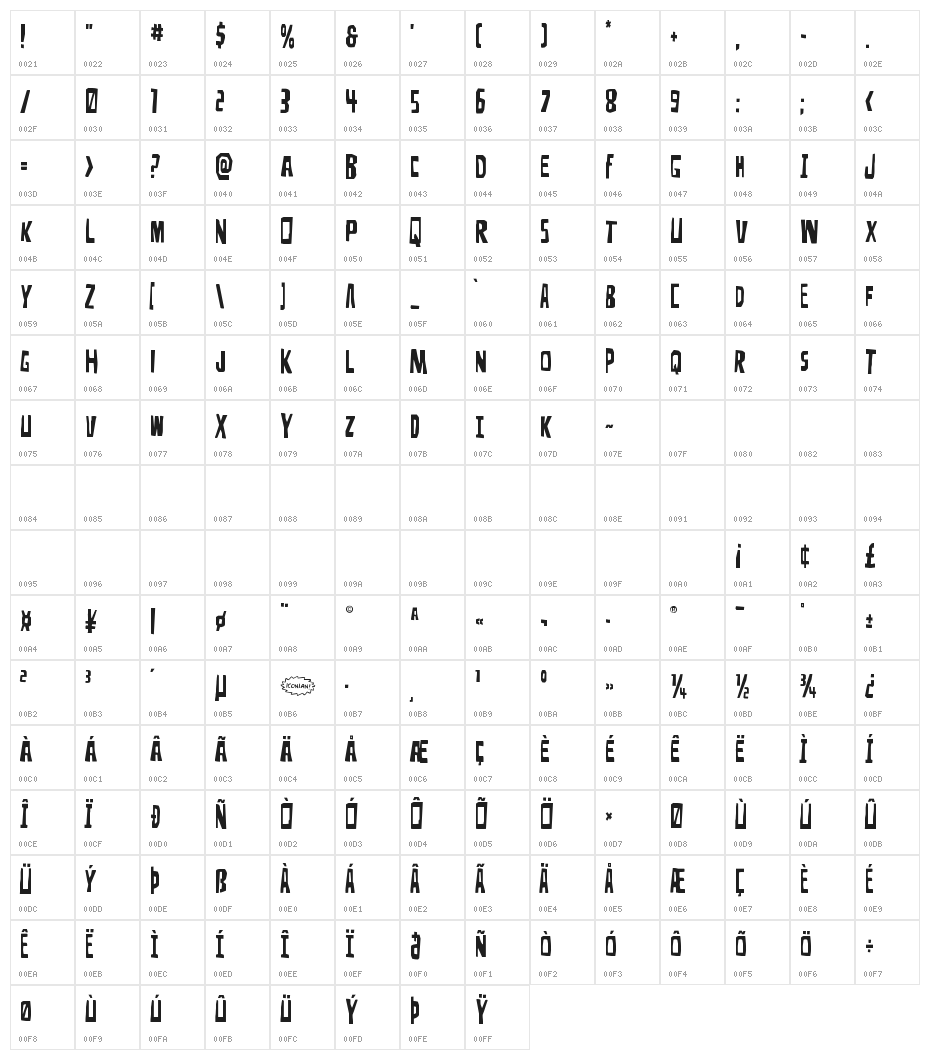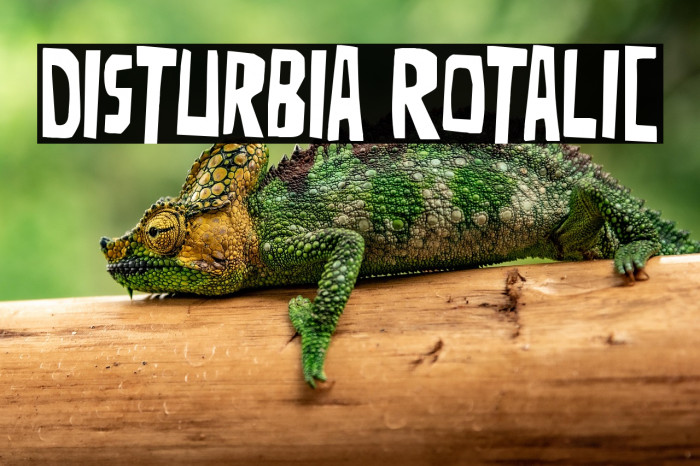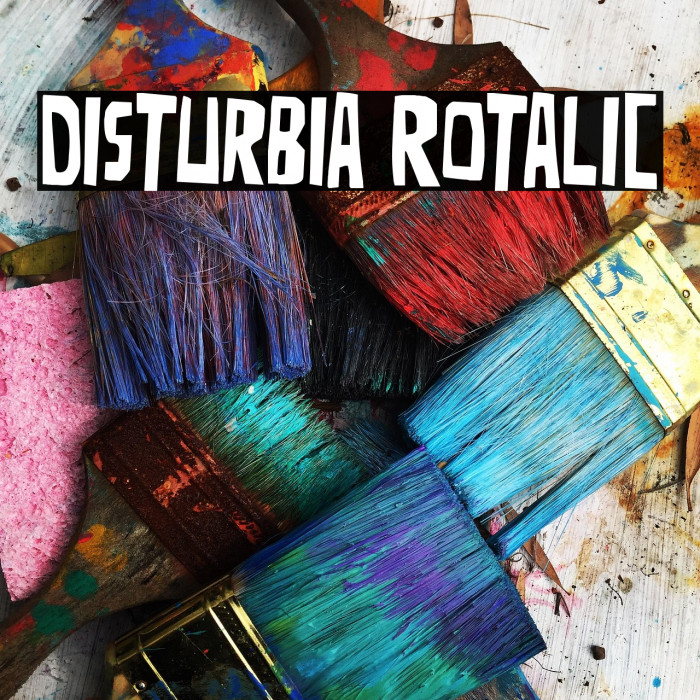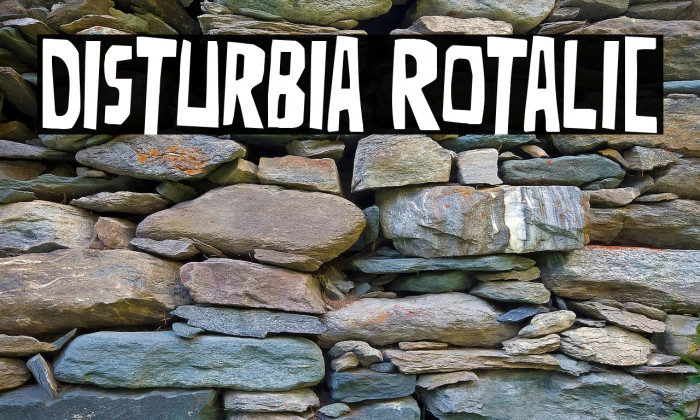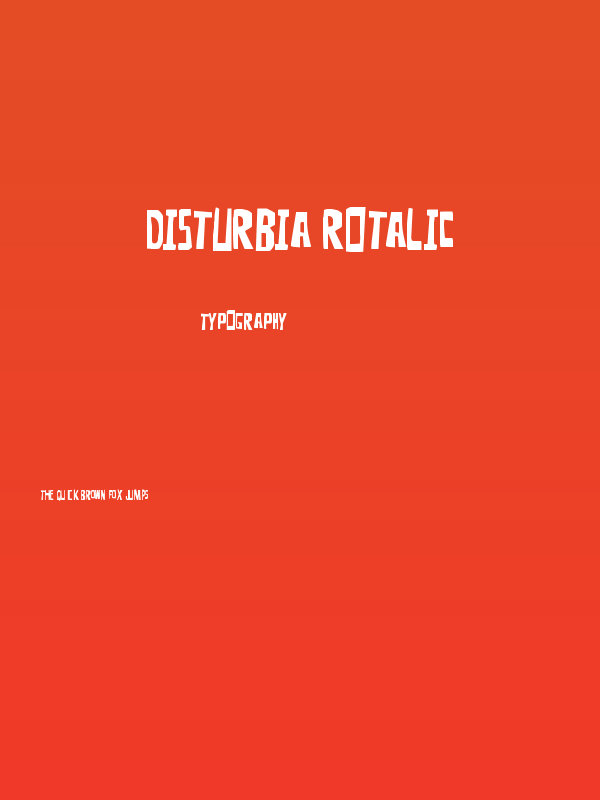
Disturbia Rotalic Font
Disturbia Rotalic Description
This font features a bold and dynamic style with a slightly distorted and irregular appearance, giving it a unique and edgy look. The uppercase letters are prominent and angular, while the lowercase letters maintain a consistent yet quirky design. Numbers and special characters follow the same bold and unconventional style, making the font suitable for eye-catching designs. The overall aesthetic is modern and slightly rebellious, perfect for projects that require a standout and creative typeface.
| Overall Style | Modern, Edgy |
| Use Case | Headlines, Posters, Branding |
| Proposed Projects | Ideal for music album covers, posters, branding for edgy products, and creative digital art. |